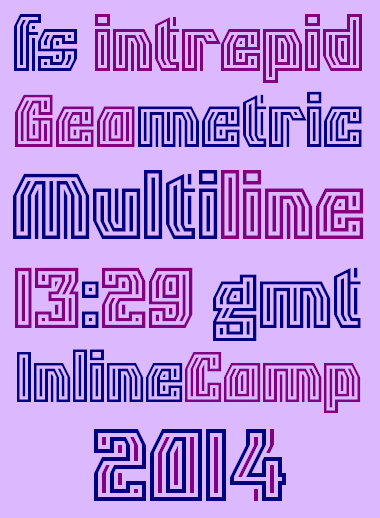
fs intrepid
A geometric InlineComp entry. There are a few alternates in Extended Latin A. Suggestions are very welcome. Thanks!
Stylish and legible and I especially like your "g". Is it possible to put a line to "i"'s dot?
Looks great.
@architaraz: Thanks! I've changed the i and j.
I'm loving it!
very cool
Yet another very strong entry to the competition. Your beautiful demo poster suggest an application to fs intrepid: cards made with letterpress and embossed, would look great. 10/10
Thanks, Frodo; that's an awesome idea! It would be cool if I had the tools to do that...
You are INTREPID to attempt a design as cool as this one! Congrats on the TP